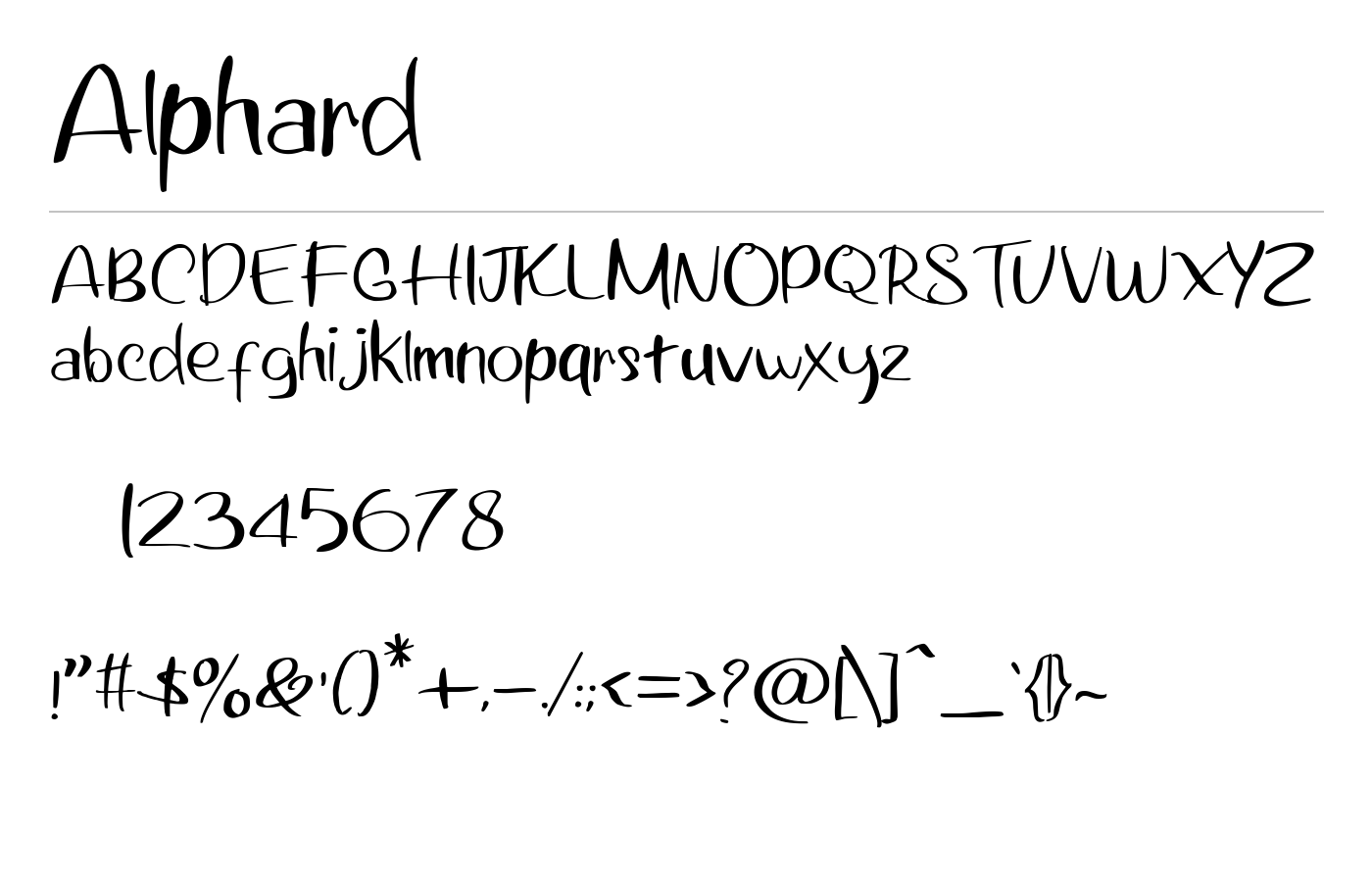
Alphard is a playful and casual handwritten sans serif font with a lively, slightly irregular stroke style that gives it a friendly and approachable personality. Its medium weight and balanced letter spacing make it versatile for creative projects such as informal branding, playful editorial content, and personal invitations. This font works well where a warm, human touch is desired, adding charm and authenticity to the design.
Alphard Font